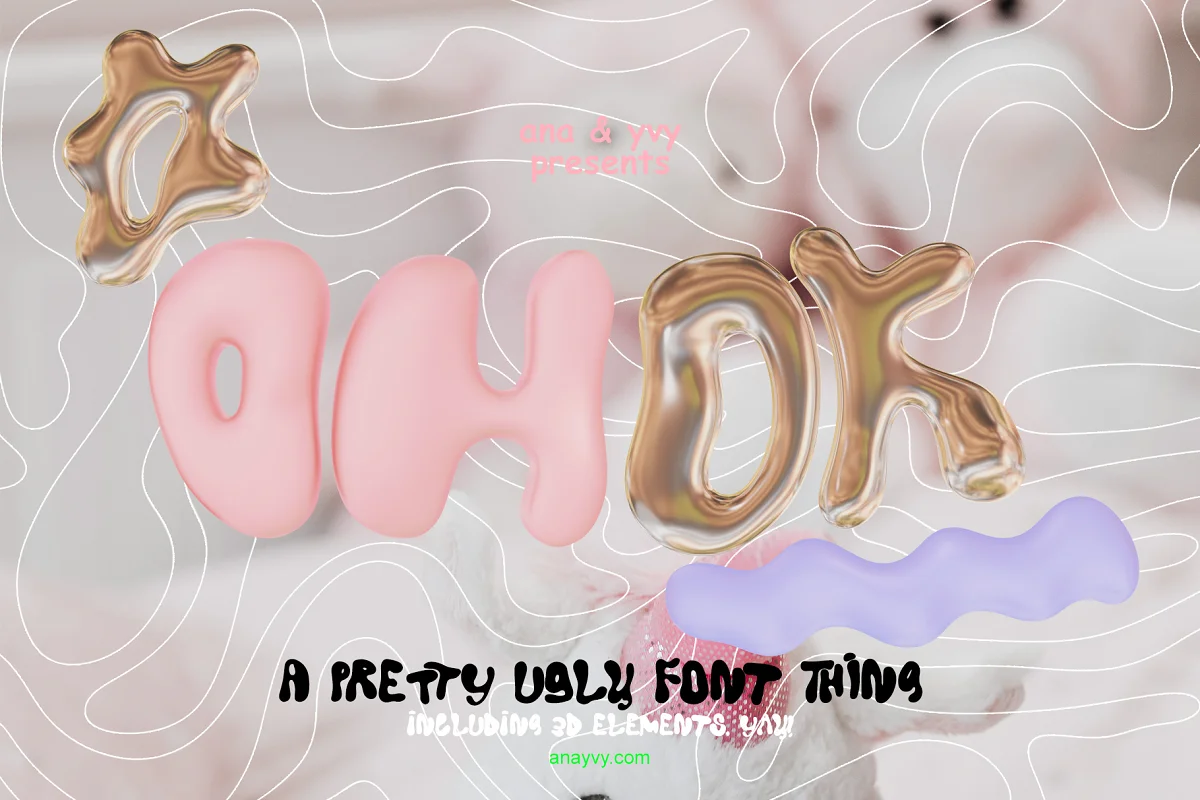
About the ok cool metallic bubble duo Font
Please enjoy this wobbly bubble 3D font. Realistic bubble or gold metallic chrome letters & ligatures make every poster or layout looking the bomb. 100%.
- plain black font (without 3D effect)
- wabble shapes